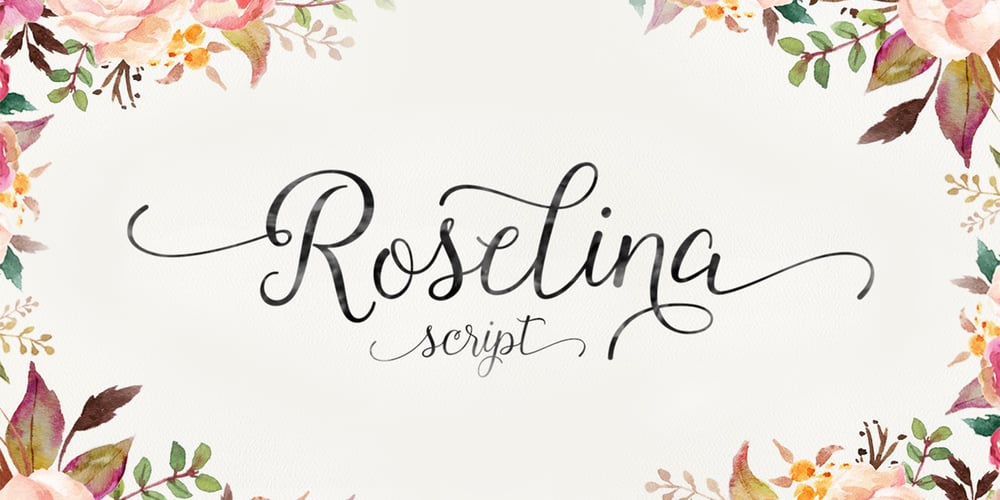
Roselina Script
Roselina Script font
Roselina Script Font Family was designed by Seniors Studio and published by Seniors Studio. Roselina Script contains 1 styles and family package options. Roselina Script is a modern calligraphy, with a vintage feel. moving baseline and elegant touch. Can be used for various purposes.such as headings, signature, logos, wedding invitation, t-shirt, letterhead, signage, lable, news, posters, badges etc. Including initial and terminal letters, alternates, ligatures and multiple language support.